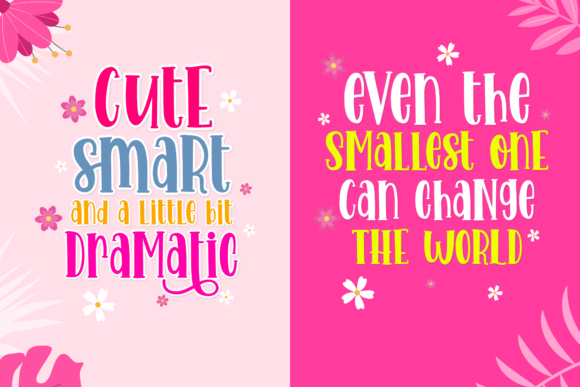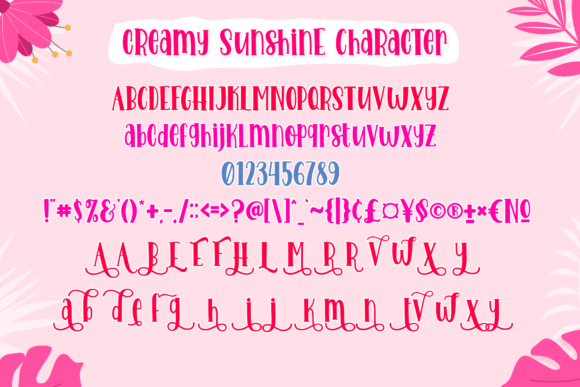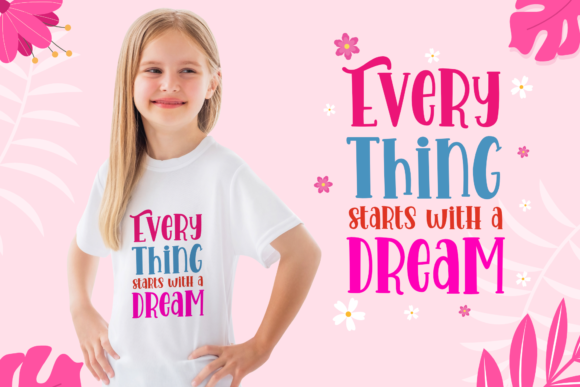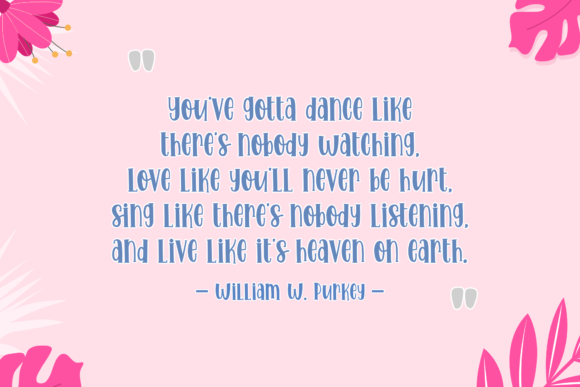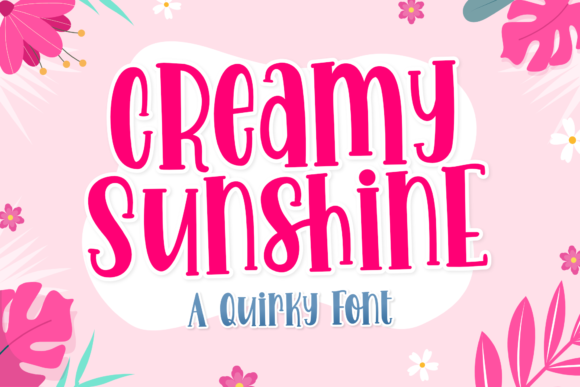
Creamy Sunshine Font: Elevate Your Designs with a Fun and Playful Display Font
Are you looking for a font that can add a touch of warmth and playfulness to your designs? Look no further than the Creamy Sunshine Font! This delightful display font is perfect for designers and crafters who want to create spectacular designs that capture the imagination. In this article, we’ll take a closer look at the Creamy Sunshine Font, its features, and how you can use it to take your designs to the next level.
What is Creamy Sunshine Font?
Creamy Sunshine is a fun and playful display font that’s designed to make your ideas more realistic and visually appealing. Its unique and charming style makes it perfect for a wide range of design projects, from branding and advertising to crafting and scrapbooking. With its bold and eye-catching appearance, Creamy Sunshine Font is sure to grab attention and leave a lasting impression.
Key Features of Creamy Sunshine Font
So, what makes Creamy Sunshine Font so special? Here are some of its key features:
- Fun and Playful Style: The font has a fun and playful style that’s perfect for creating designs that are lighthearted and engaging.
- Display Font: Creamy Sunshine is a display font, which means it’s designed to be used at larger sizes, making it perfect for headlines, titles, and other design elements.
How to Use Creamy Sunshine Font
So, how can you use Creamy Sunshine Font in your designs? Here are a few ideas to get you started:
- Branding and Advertising: Use Creamy Sunshine Font to create eye-catching logos, advertisements, and marketing materials that grab attention and communicate your brand’s personality.
- Crafting and Scrapbooking: Add a touch of whimsy and fun to your crafting and scrapbooking projects with Creamy Sunshine Font. Use it to create titles, headings, and other design elements that add visual interest.
- Social Media Graphics: Use Creamy Sunshine Font to create engaging social media graphics that stand out from the crowd. Its playful style makes it perfect for creating fun and shareable content.
Benefits of Using Creamy Sunshine Font
So, why should you choose Creamy Sunshine Font for your designs? Here are some of the benefits of using this delightful font:
- Unique and Eye-Catching: Creamy Sunshine Font has a unique and eye-catching style that’s sure to grab attention and leave a lasting impression.
- Versatile: Creamy Sunshine Font is versatile and can be used in a wide range of design projects, from branding and advertising to crafting and scrapbooking.
Tips for Getting the Most Out of Creamy Sunshine Font
Here are a few tips for getting the most out of Creamy Sunshine Font:
- Experiment with Different Sizes: Creamy Sunshine Font is designed to be used at larger sizes, so experiment with different sizes to find the one that works best for your design.
- Pair it with Other Fonts: Try pairing Creamy Sunshine Font with other fonts to create a unique and visually appealing design.
- Use it to Add Emphasis: Use Creamy Sunshine Font to add emphasis to important design elements, such as headlines and titles.
| Font Name | Creamy Sunshine Font |
| Author | Holydie Studio |
In conclusion, Creamy Sunshine Font is a fun and playful display font that’s perfect for designers and crafters who want to create spectacular designs. With its unique and eye-catching style, PUA encoding, and versatility, it’s an excellent choice for a wide range of design projects. So why not give it a try and see how it can elevate your designs to the next level?